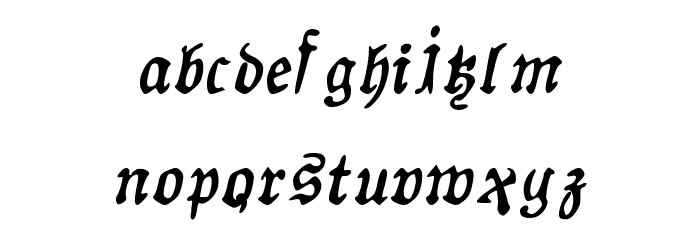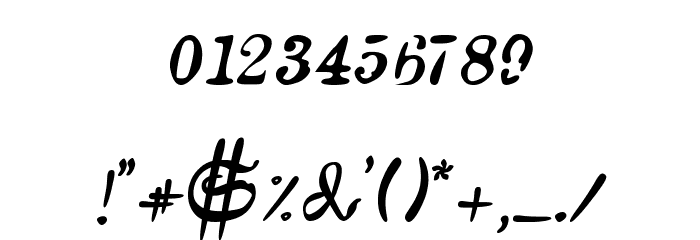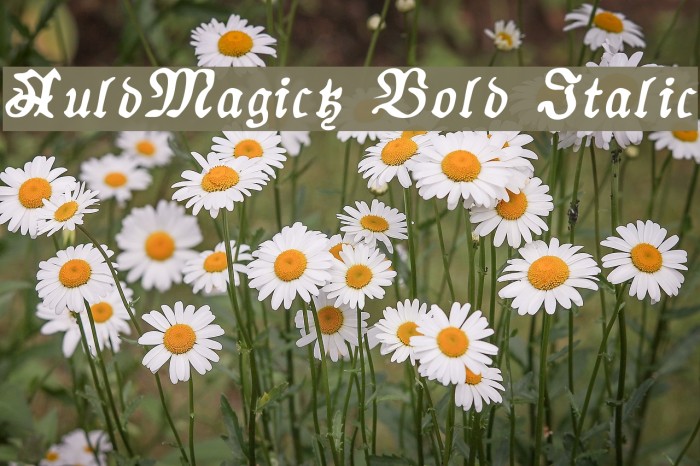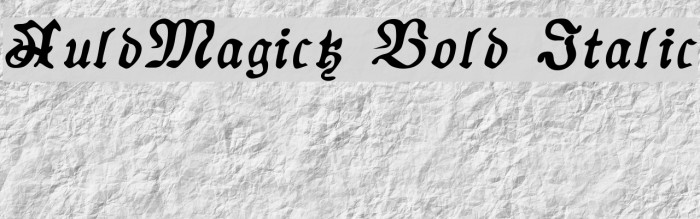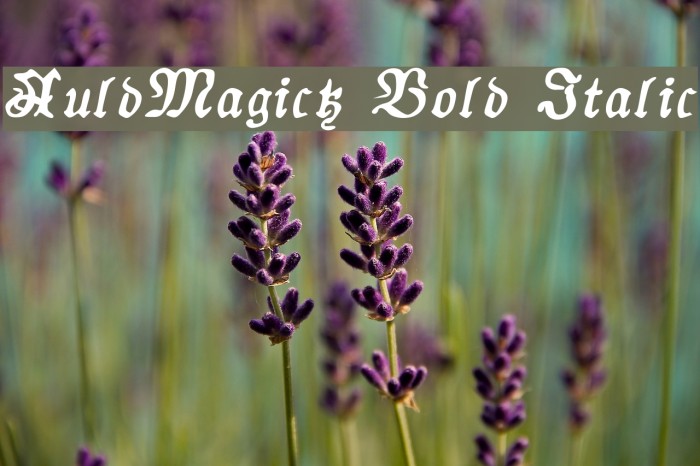
AuldMagick Bold Italic Font
This font exudes a mystical and enchanting aura, reminiscent of ancient scripts and magical texts. The characters are bold and italicized, with intricate curves and flourishes that give it a distinct, decorative appearance. The uppercase letters are particularly elaborate, featuring sweeping lines and ornate details. The lowercase letters maintain a consistent style, with a slightly more subdued elegance. Numbers and special characters are designed to match the overall theme, ensuring a cohesive look across all glyphs. The font's unique style makes it ideal for projects that require a touch of fantasy or historical charm.
A bold, italicized decorative font with a mystical, enchanting style.
- Proposed Projects: Ideal for fantasy book covers, magical event invitations, themed posters, and historical reenactment materials.